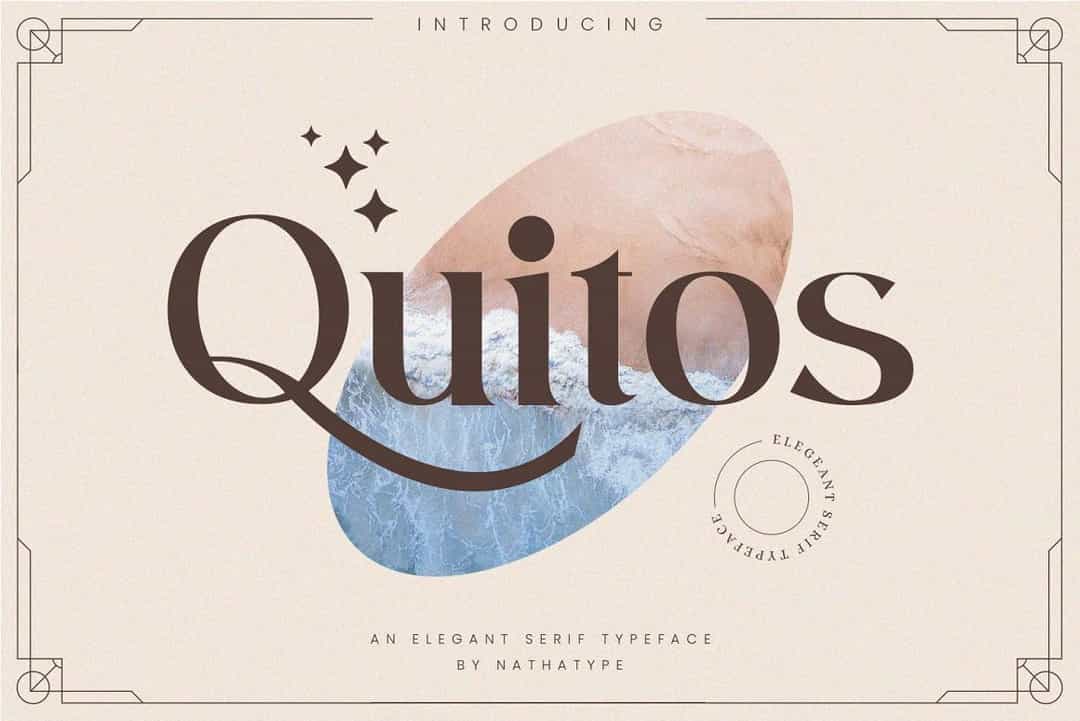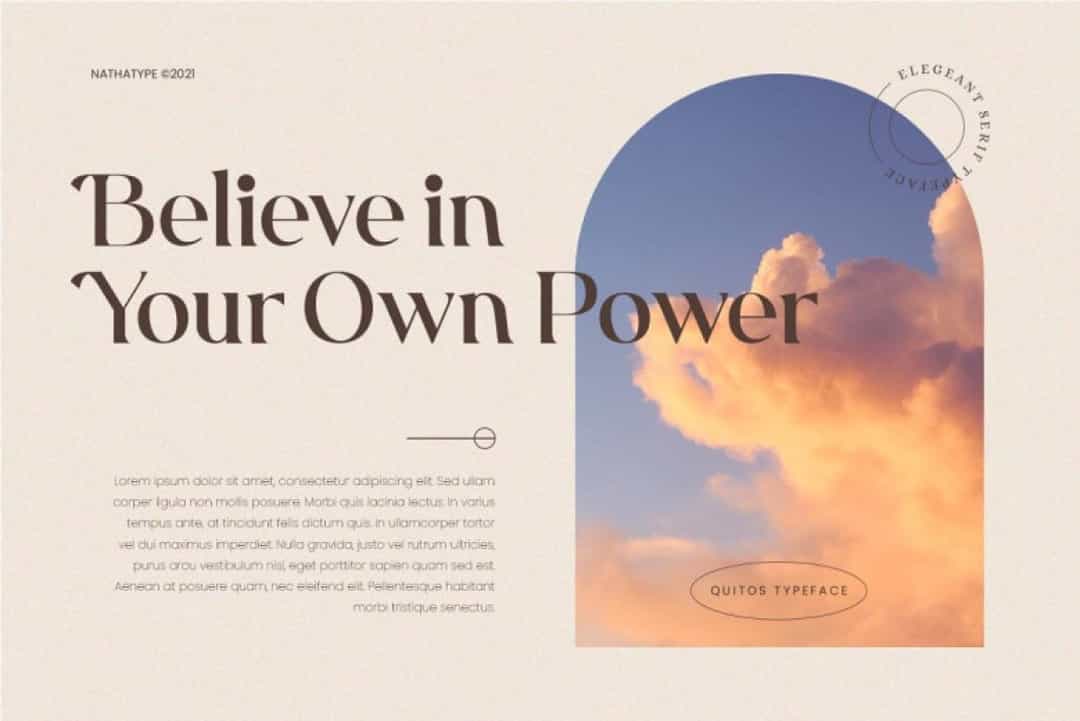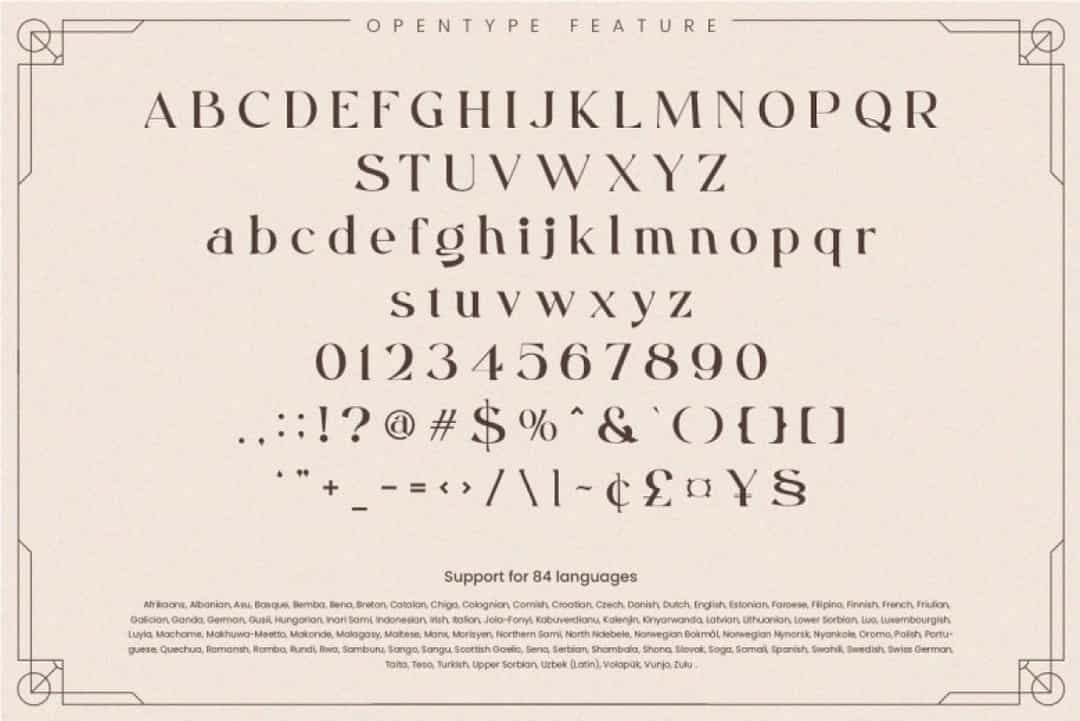
Quitos is a modern and elegant serif font, designed to capture attention and improve branding efforts on printed material and web layout. This font was specifically made to emphasize its modern and elegant features.